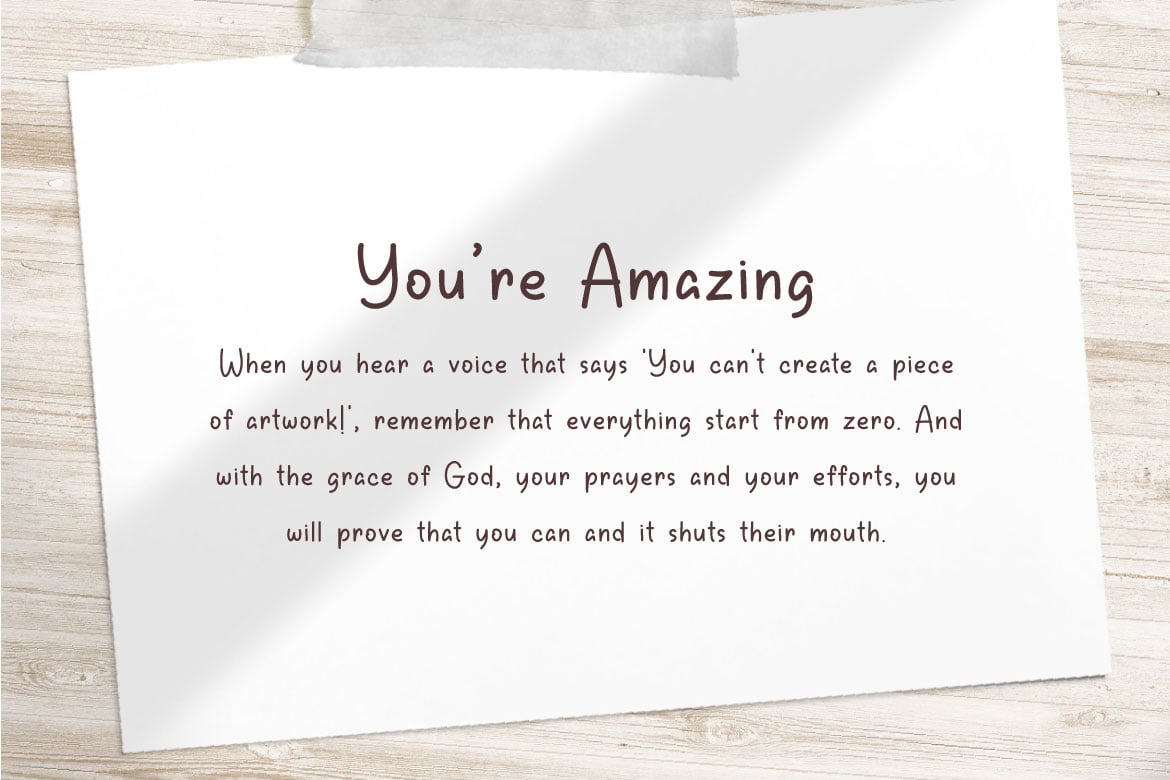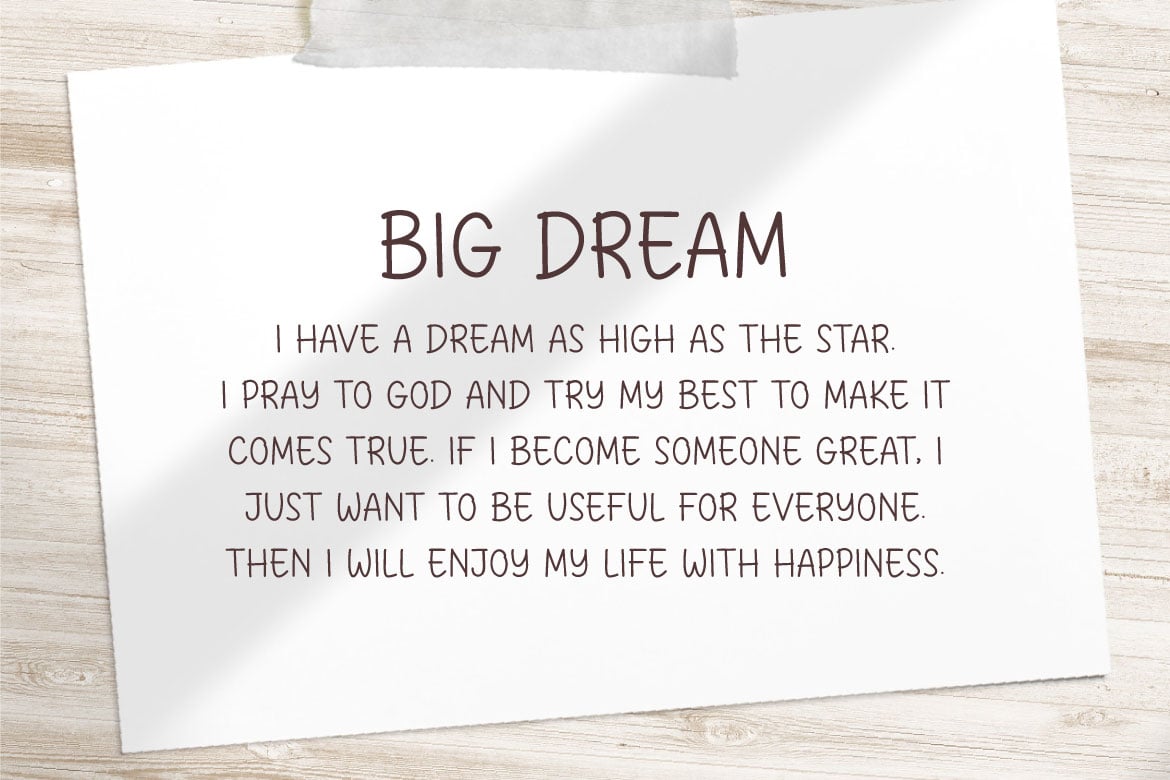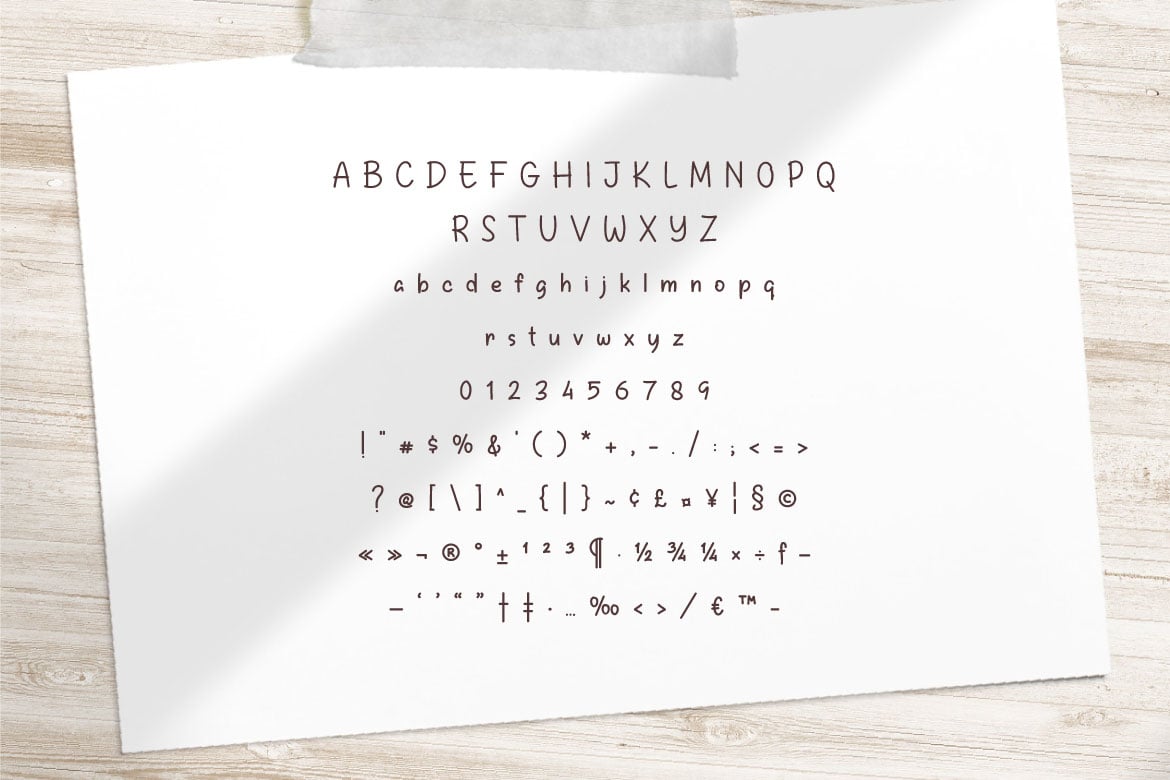
Barymon – Handwritten Comic Font
Barymon is a playful and expressive handwritten comic font, perfect for bringing a lively and fun touch to your creative projects. With its bold and energetic strokes, Barymon captures the essence of hand-drawn comics, making it ideal for a wide range of applications including children’s books, posters, comic strips, branding, and social media graphics.
Add a unique and playful touch to your designs with Barymon – a font that brings stories to life with character and charm!